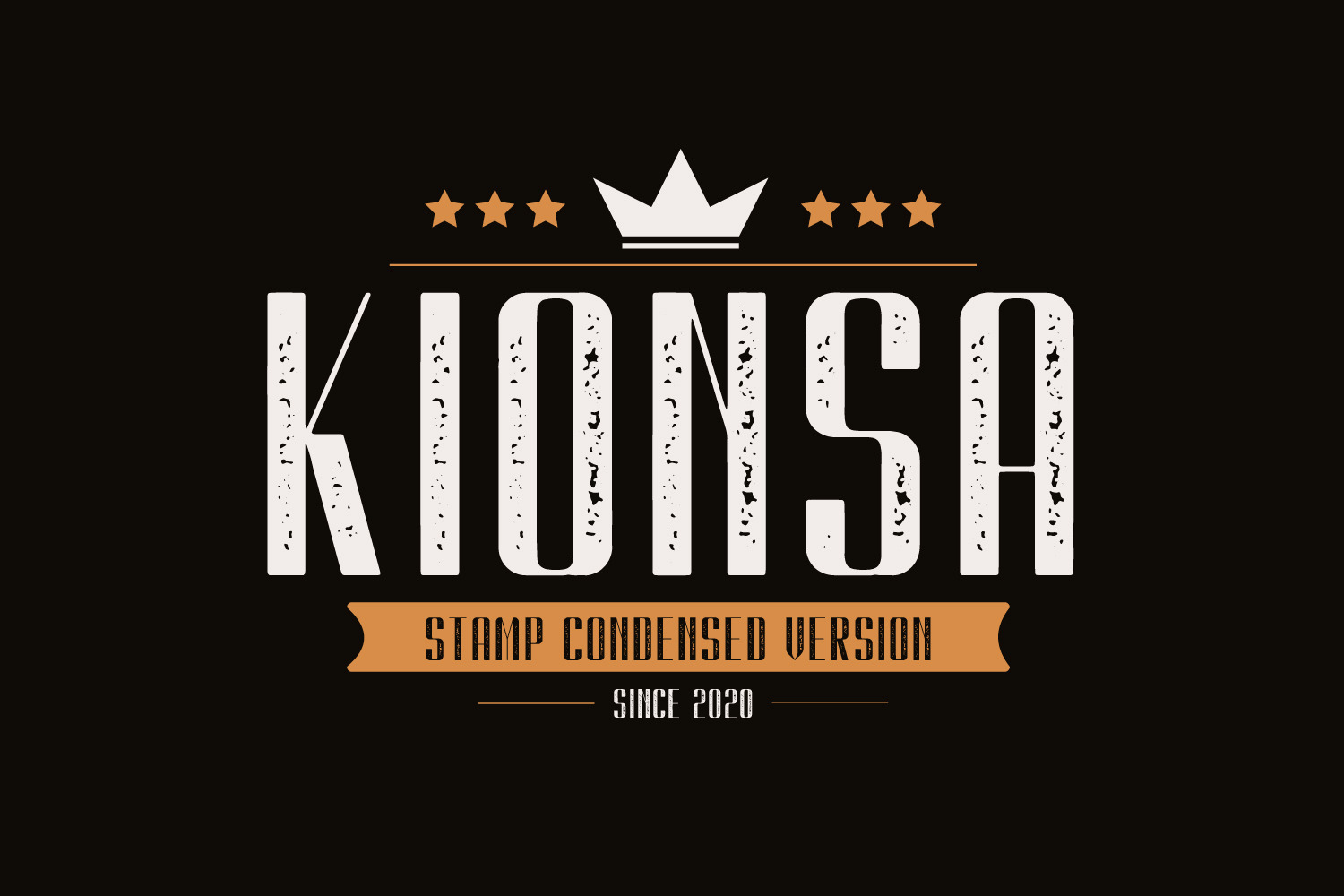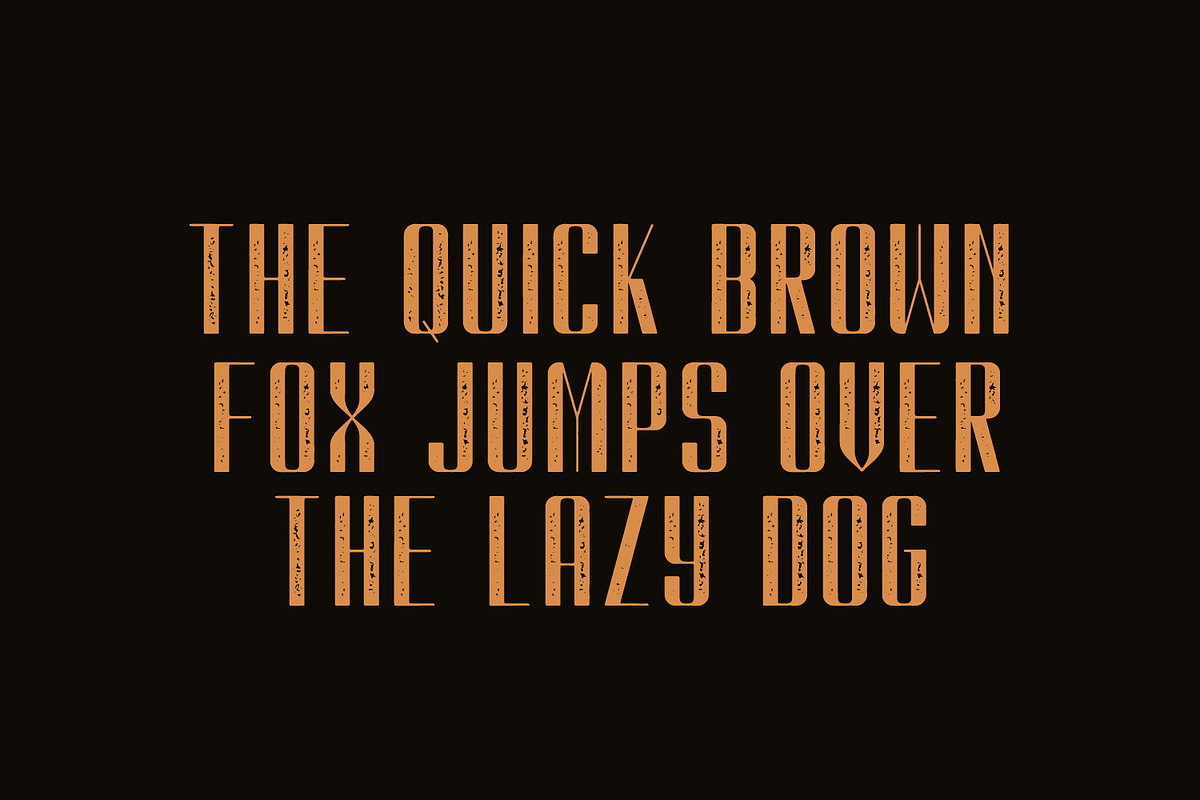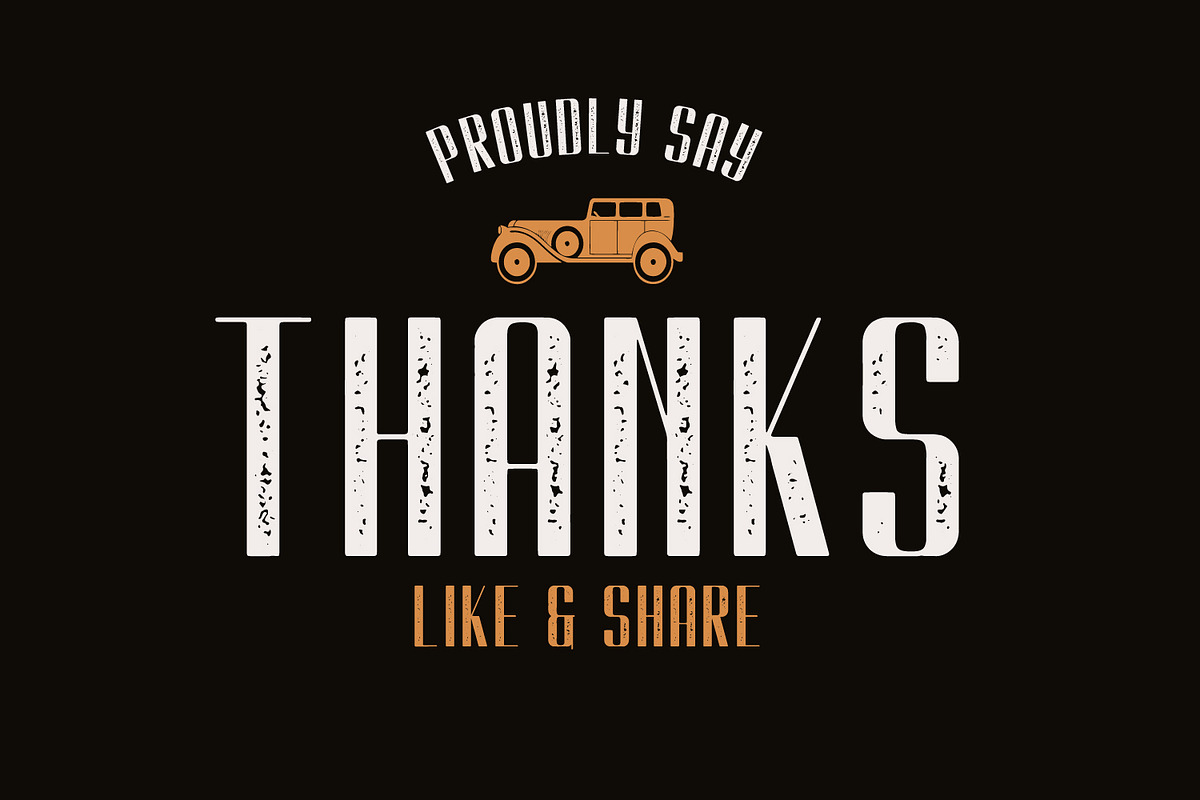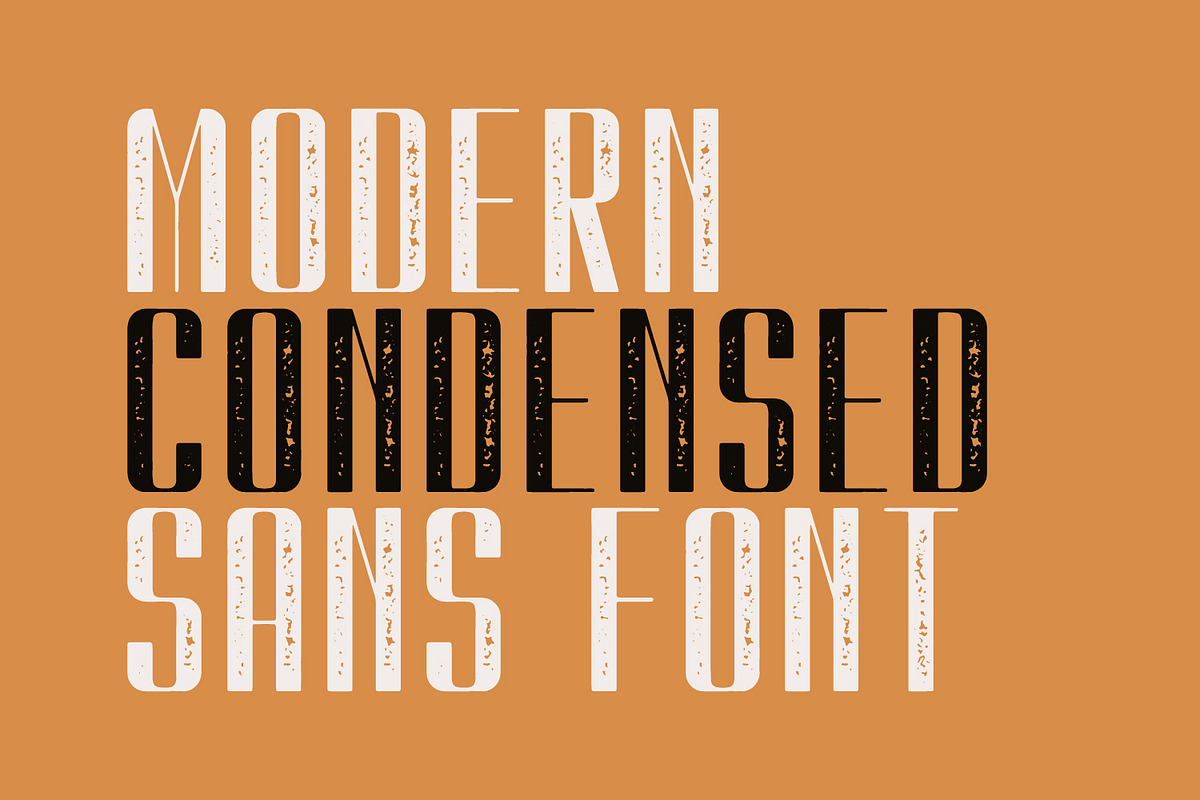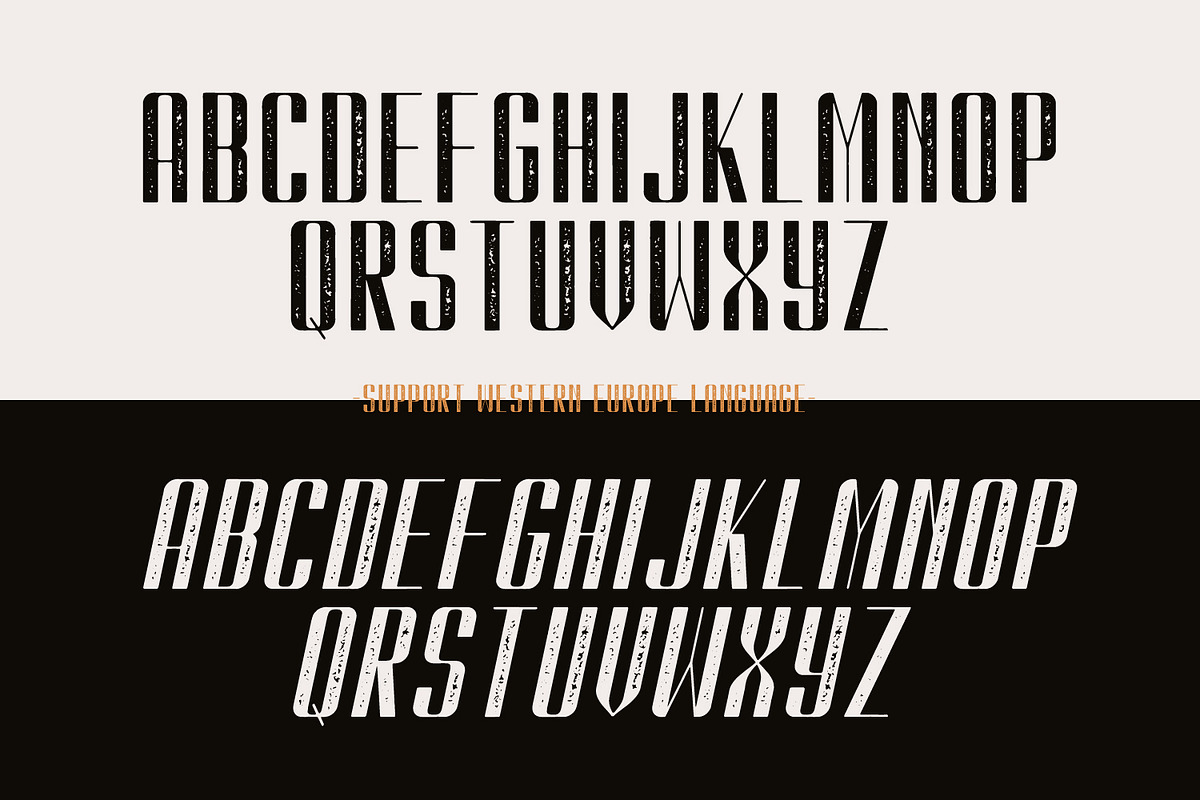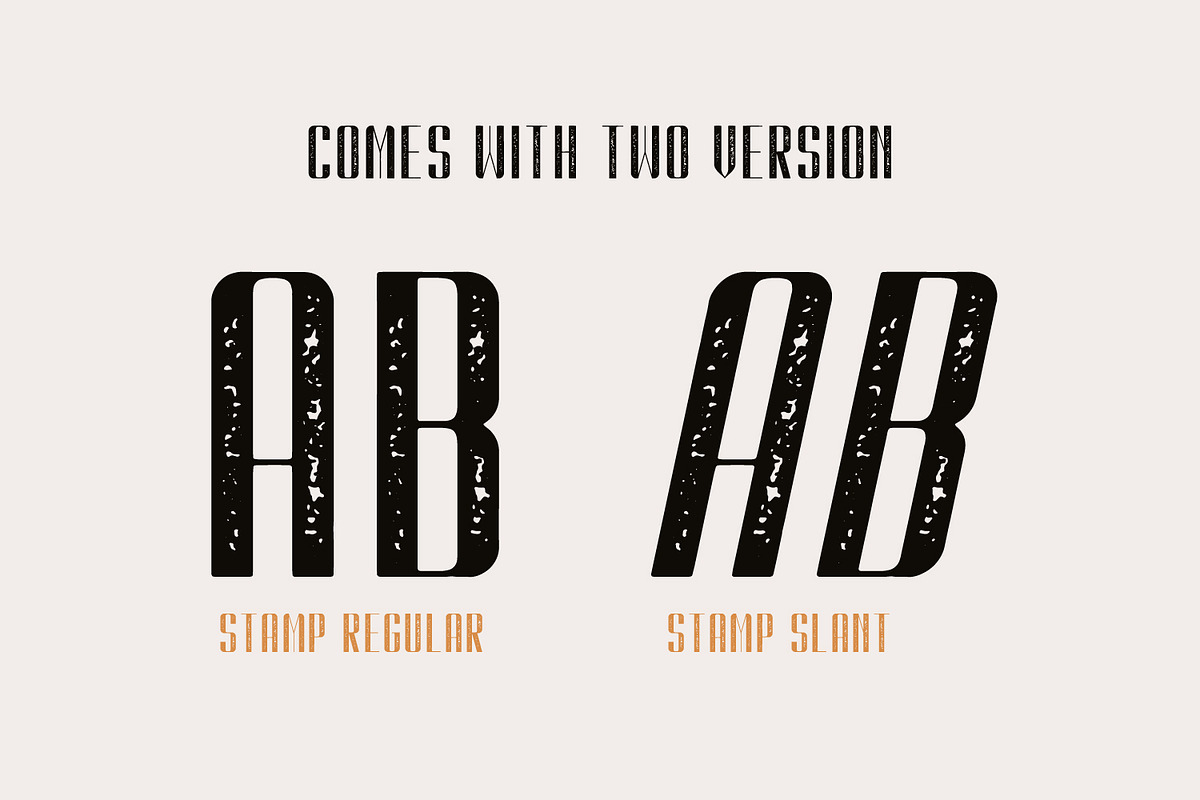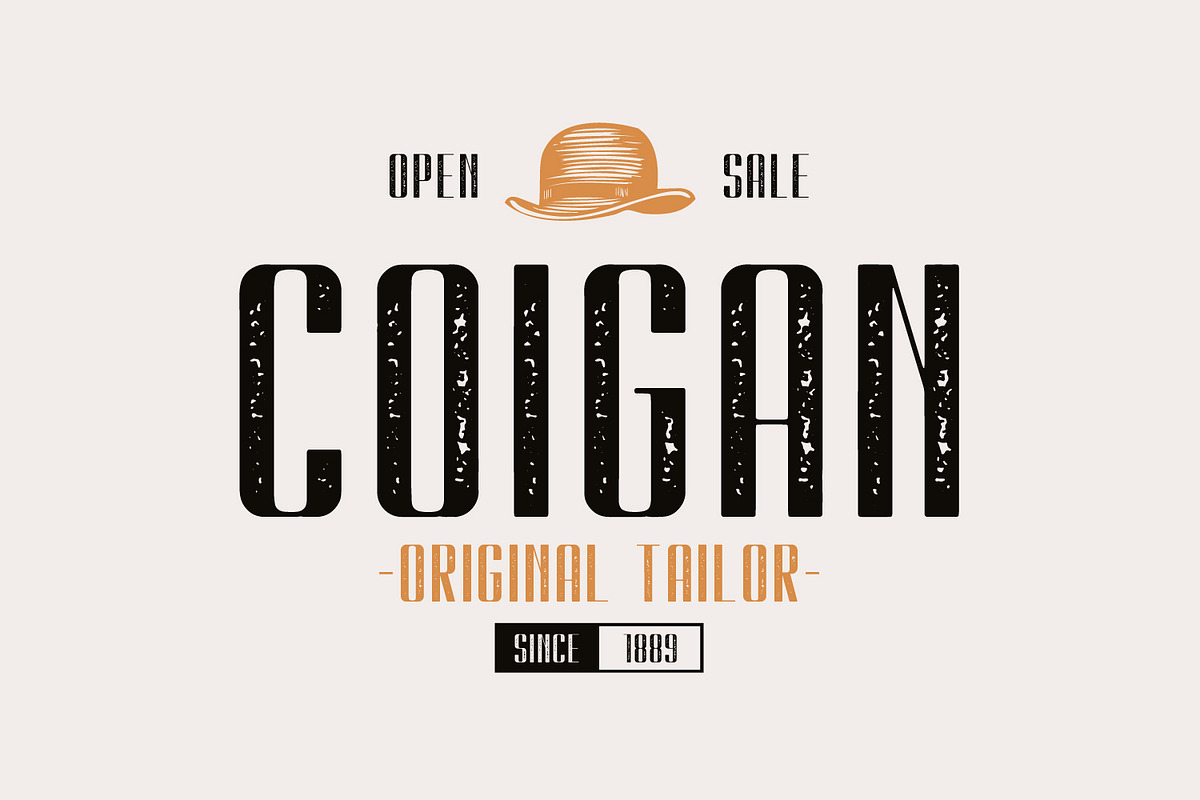
Kionsa Stamp - Vintage Display font
Kionsa Stamp is a vintage display font including Regular and Slant versions. it's perfect for logos, name card, magazine layouts, invitations, headers, or even large-scale artwork. Posey includes 4 OTF & TTF files within the Zip folder.
- All Caps Font
- Punctuation and Number
- Multilingual Language